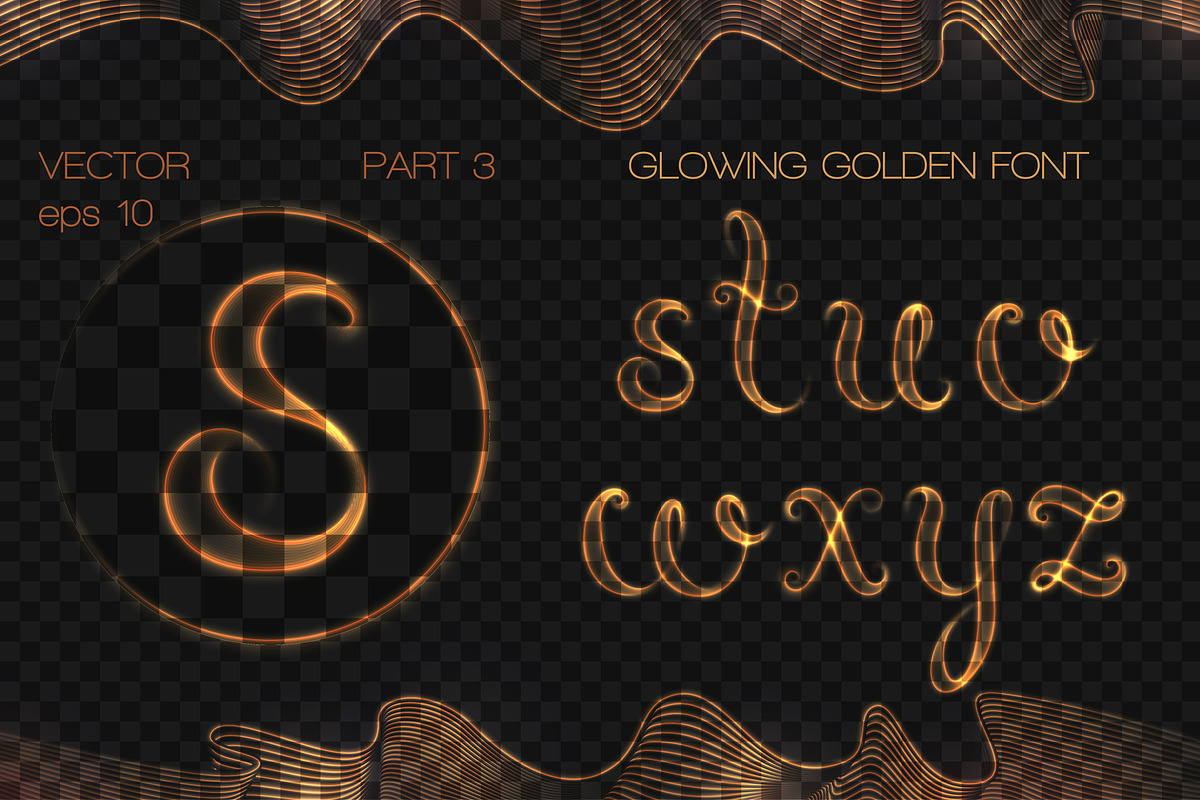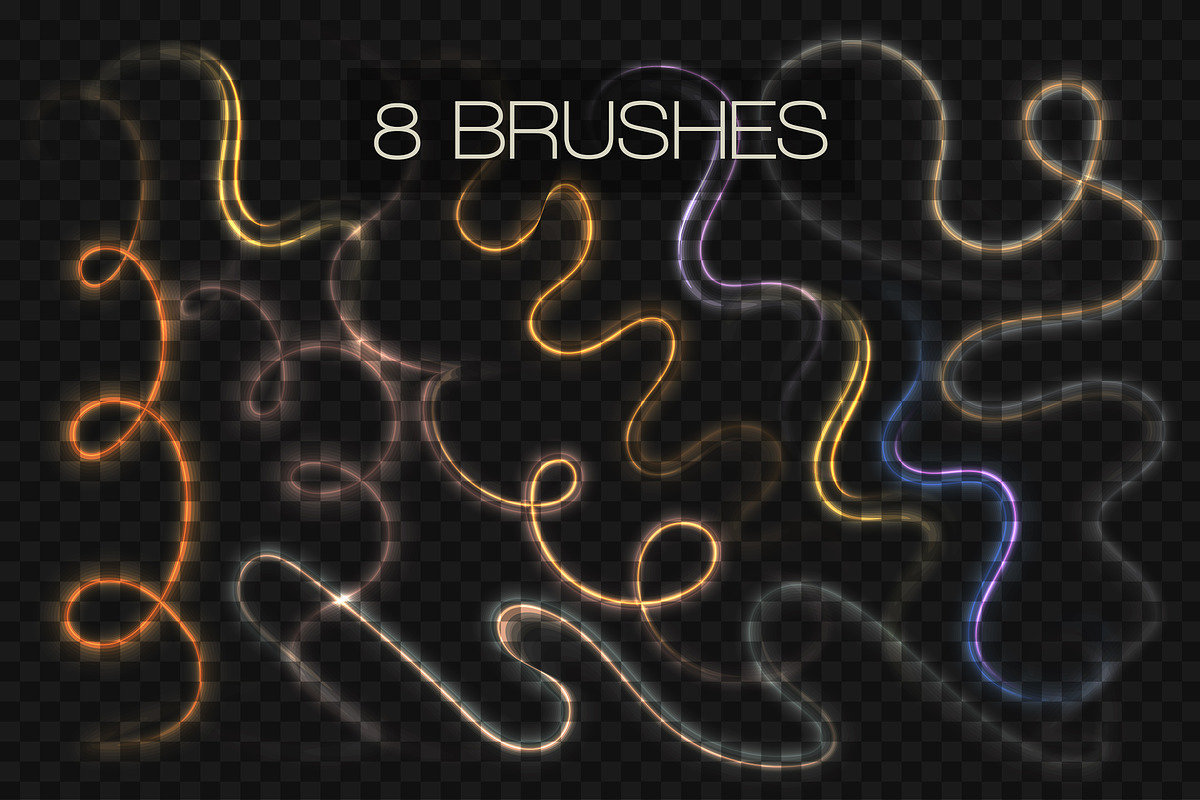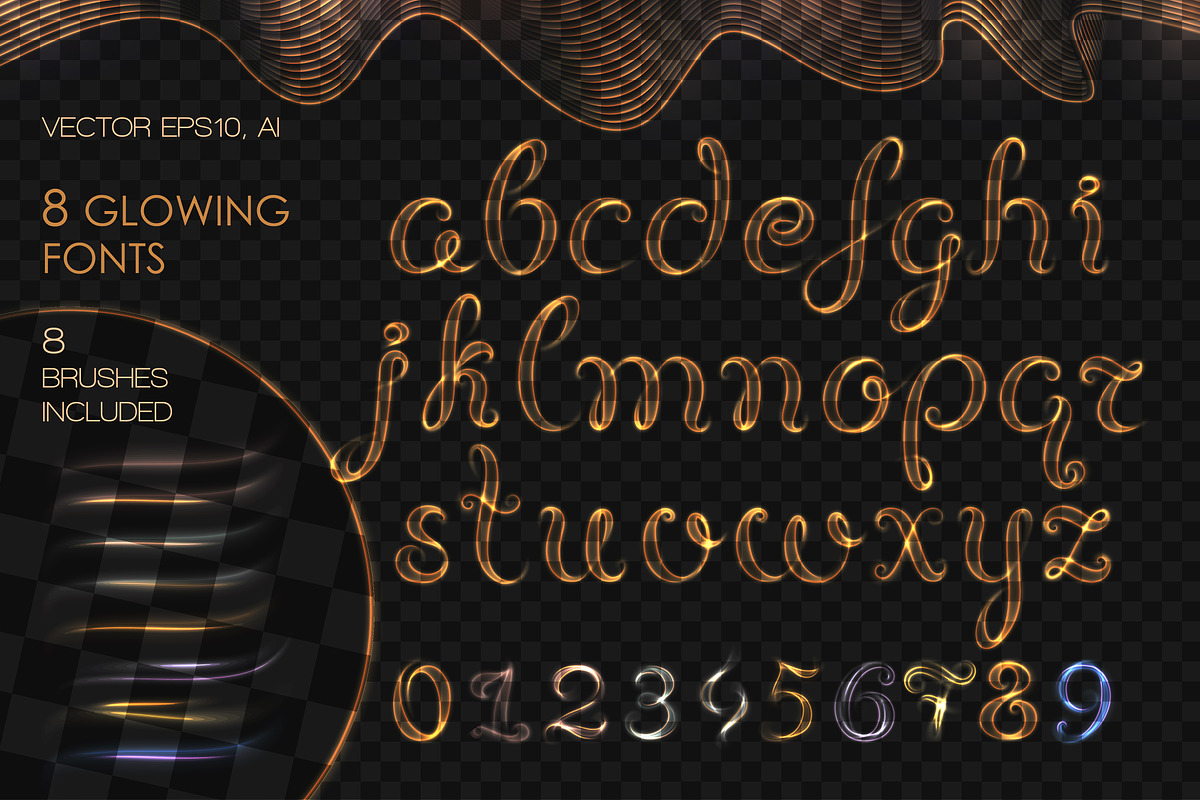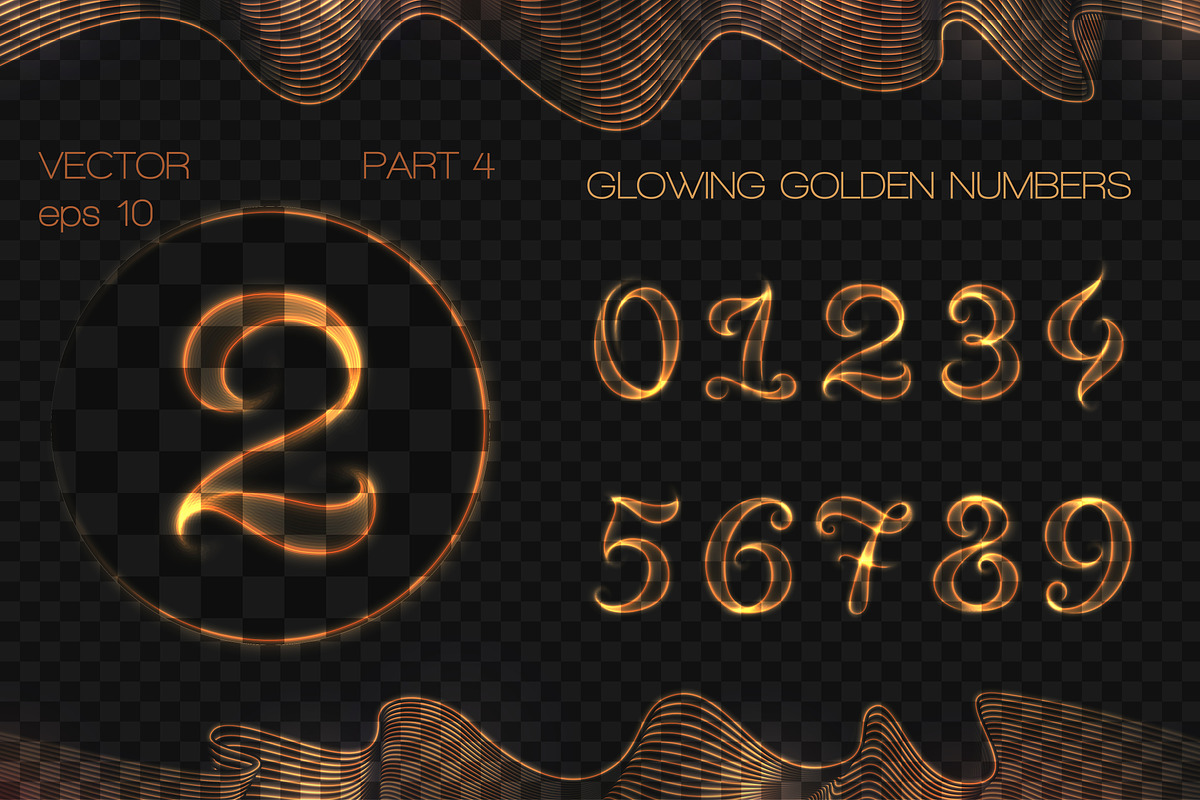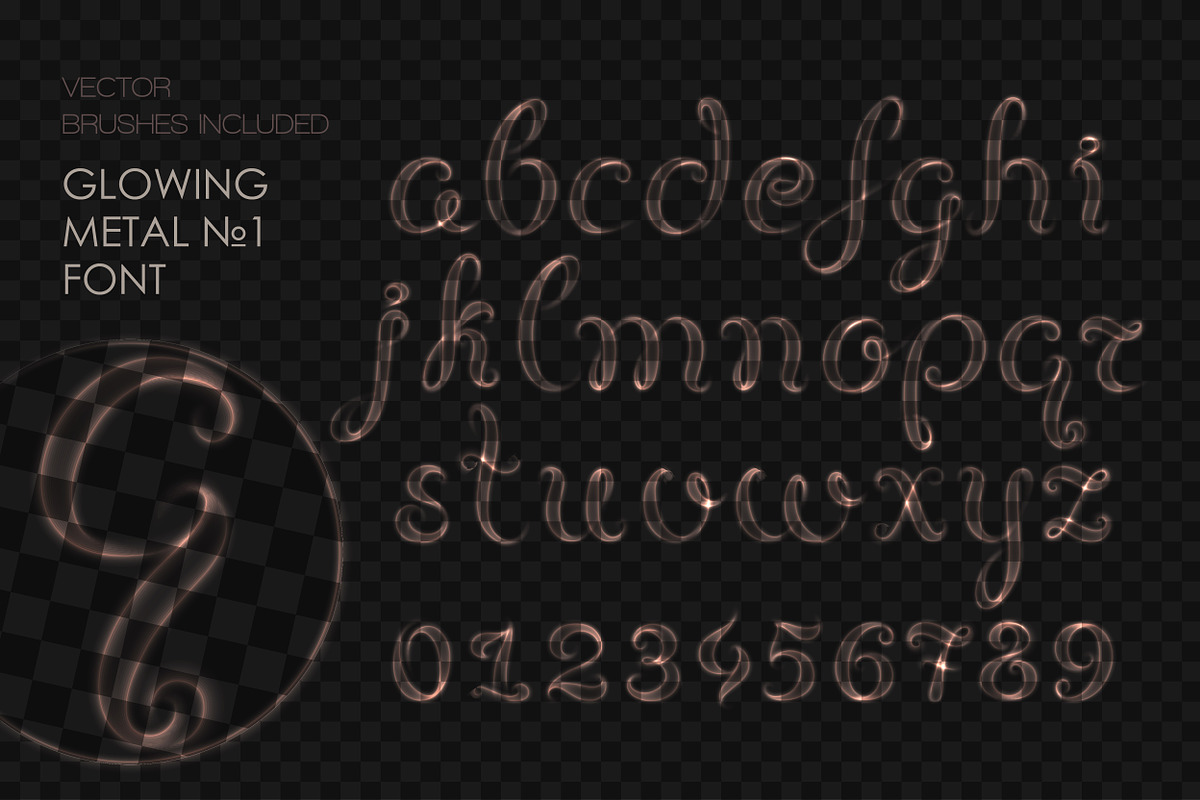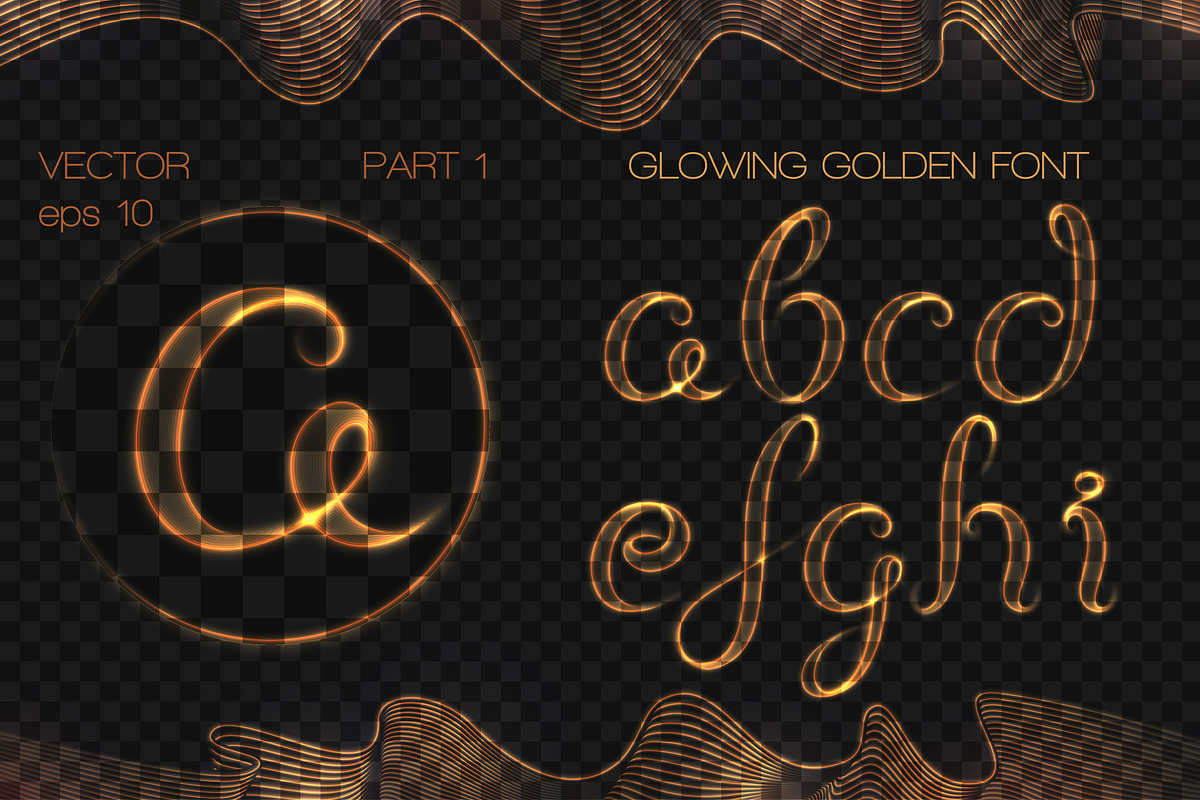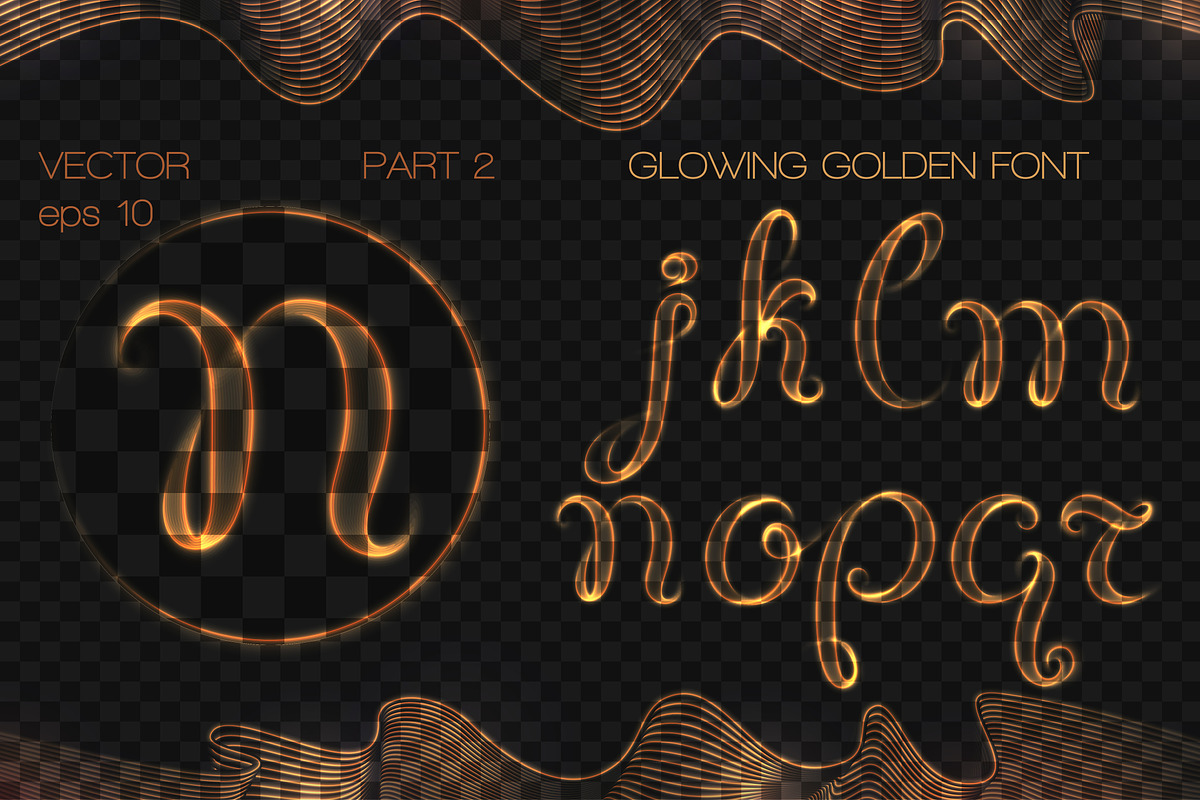
8 GLOWING METAL FONTS / 8 BRUSHES
8 GLOWING METAL FONTS / 8 BRUSHES by NadinLebedeva is a font selected for branding, posters, packaging, typography.
Why 8 GLOWING METAL FONTS / 8 BRUSHES is worth a look
8 GLOWING METAL FONTS / 8 BRUSHES by NadinLebedeva fits naturally into Branding, posters, packaging, typography.